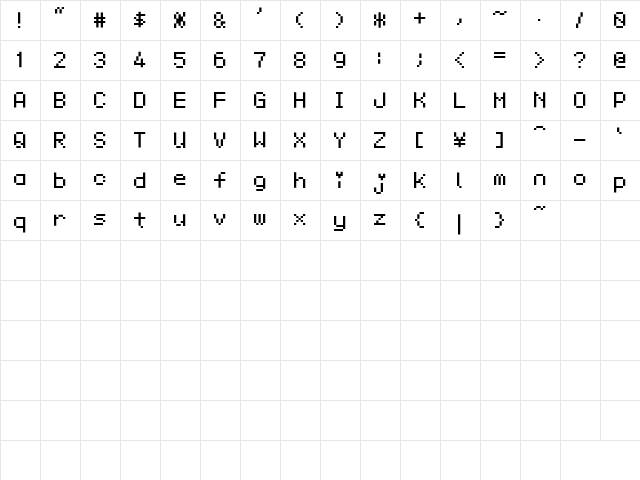
KS-PetitHeart08 Regular
KS-PetitHeart08 offers clean, dependable letterforms without strong stylistic allegiance, making it a practical choice for designers who need flexibility.